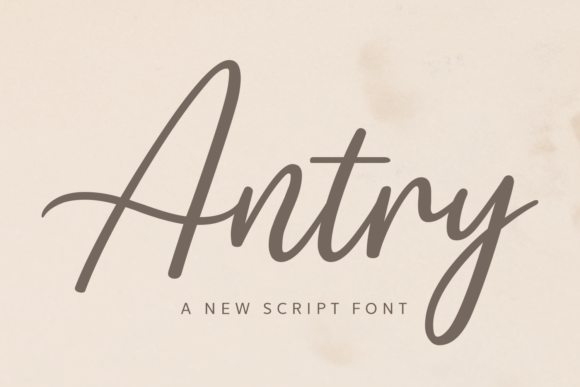
Introducing Antry Font: Elevate Your Typography Designs with Elegance
In the world of typography, fonts play a crucial role in conveying the tone and aesthetic of a design. If you’re looking for a typeface that exudes elegance, sophistication, and a touch of whimsy, look no further than Antry Font. This beautiful script font is designed to add a chic and dreamy aura to your designs, making it perfect for a wide range of creative projects.
What is Antry Font?
Antry Font is a stunning script typeface that boasts a graceful and elegant appearance. Its flowing lines, delicate curves, and intricate details make it an ideal choice for designers seeking to create stylish and eye-catching typography. Whether you’re working on a logo, tag, label, invitation, card, or any other design project, Antry Font is sure to impress.
Key Features of Antry Font
So, what makes Antry Font so special? Here are some of its key features:
- Elegant Script Design: Antry Font boasts a beautiful script design that’s perfect for creating sophisticated and stylish typography.
- Versatile: Antry Font is suitable for a wide range of design projects, from logos and branding to invitations and cards.
Benefits of Using Antry Font
- Enhanced Visual Appeal: Antry Font’s elegant design is sure to capture the attention of your audience and elevate the visual appeal of your designs.
- Increased Creativity: With its versatile design and range of glyphs and swashes, Antry Font can help spark your creativity and inspire new ideas.
In conclusion, Antry Font is a stunning script typeface that’s perfect for designers seeking to add a touch of elegance and sophistication to their typography designs. With its PUA encoding, versatile design, and range of glyphs and swashes, Antry Font is an excellent choice for a wide range of creative projects. Whether you’re a graphic designer, branding expert, or stationery designer, Antry Font is sure to become a valuable addition to your toolkit.